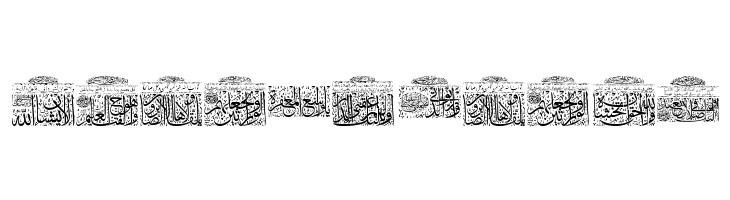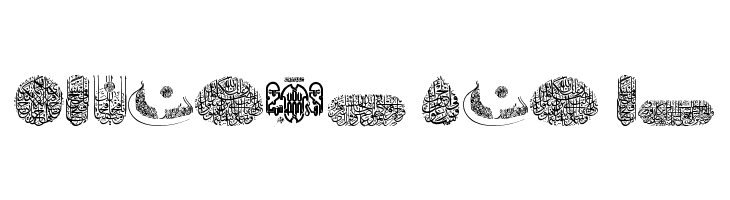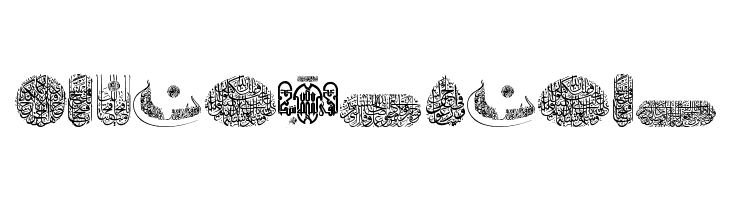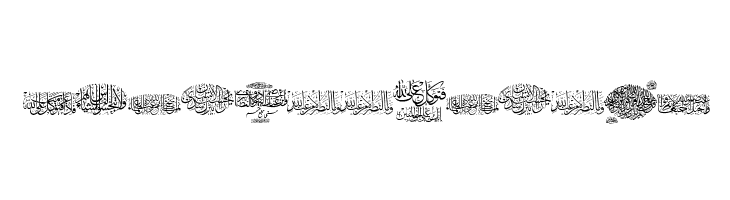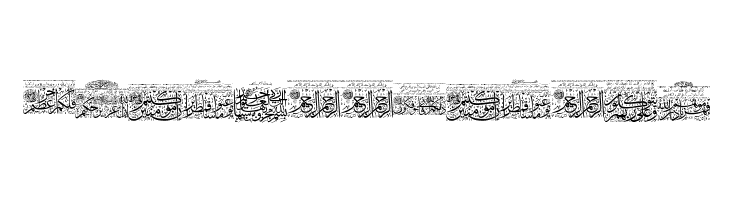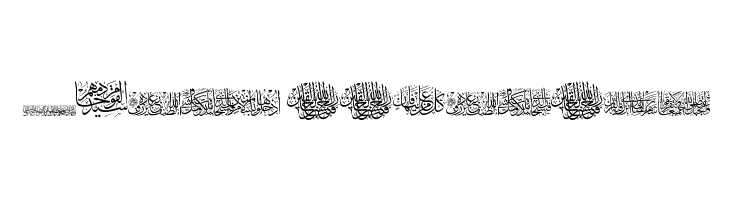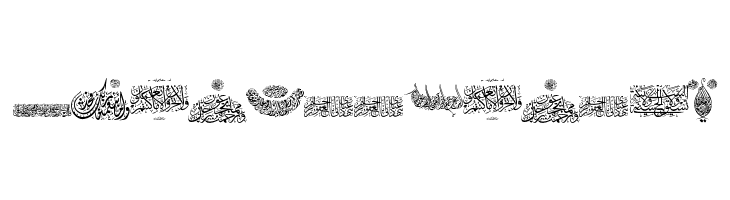
Intricate and elegant Arabic calligraphy with flowing lines and detailed ornamentation.
Ornate Arabic calligraphic script with circular, decorative motifs.
A traditional and decorative Arabic calligraphic script with intricate curves.
Ornate Arabic calligraphic script with circular and decorative motifs.
Highly decorative Arabic calligraphic script with religious motifs.
Ornate Arabic calligraphy with decorative borders and embellishments.
A traditional Arabic calligraphy font with intricate, flowing script and decorative elements.
Ornate Arabic calligraphic style with dense, decorative forms.
Ornate Arabic calligraphy with complex, decorative styling.
An ornate and traditional Arabic script with high contrast and decorative elements.
Intricate calligraphic designs inspired by traditional Arabic script.
Ornate Arabic calligraphy with elaborate decorative elements.
Ornate Arabic calligraphic emblems with dense decorative detail.
Ornate Arabic calligraphic script with circular, decorative forms.
Intricate Arabic calligraphy with flowing, decorative characters.
Ornate Arabic calligraphy with dense, decorative styling.
Ornate Arabic calligraphic script with elaborate decoration.
Ornate Arabic calligraphic style with decorative borders.
Ornate Arabic calligraphic style with dense, decorative detailing.
Intricate and ornate Arabic calligraphy with flowing, interconnected characters.
Ornate Arabic calligraphic script with complex decorative elements.
Intricate and flowing Arabic calligraphy with detailed ornamentation.
Ornate, decorative Arabic calligraphy with dense, intricate detailing.
Intricate and decorative Arabic script with a focus on aesthetic beauty.
Ornate Arabic calligraphic script with decorative flourishes.
Elaborate Arabic calligraphic style with ornate detailing.
Ornate Arabic calligraphy with decorative borders.
Intricate Arabic calligraphy with elaborate ornamentation, reflecting traditional Islamic art.
Ornate Arabic calligraphic script with dense decorative detailing.
Ornate Arabic calligraphy with decorative borders.
Ornate Arabic calligraphic script with decorative borders.